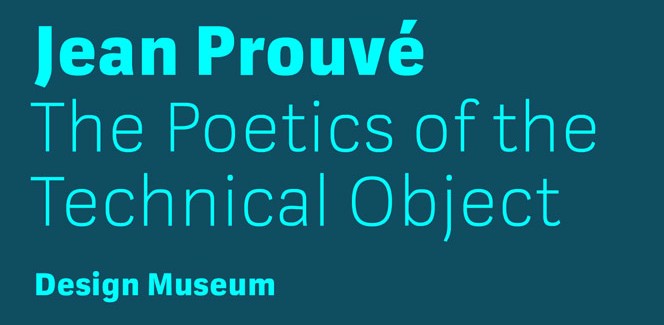
Kakadu typeface – a very reliable sans serif by Ludwig Übele
Kakadu is a modern grotesque sans serif font family that is characterized mostly by its square letterforms, angular curves and large x-height. Those make the letters quite open and clean, which accounts for great legibility. This, in turn, makes Kakadu a very solid and reliable workhorse type font family that will work very well in both smaller and larger sizes. It will add strength and firmness to any project, garnishing them with a bit of friendliness at the same time. It could be used with great success in newspapers, magazines, posters, signage, advertisements, branding, logos, etc. There is a very important fact to be noted also – the designer spent a lot of time and effort to make Kakadu fit for on screen use adapting it to the pixel grid of the modern monitors.
Kakadu typeface comes in 7 weights – Thin, Extralight, Light, Regular, Medium, Bold, Black, all with their respective Italics. The heavier styles will work perfectly when used for display purposes, as catching people’s attention with them is guaranteed. OpenType features include very useful extras like Case sensitivity, Ordinals, Alternates, Superiors and Inferiors, Slashed Zero, Fractions, Tabular Figures, Ligatures, Small Caps as well as rich language support.
With Kakadu font family the highly experienced German designer Ludwig Übele once again treats us with something very special. Here you can witness more of his exceptional work:
Designer: Ludwig Übele
Publisher: Ludwig Type